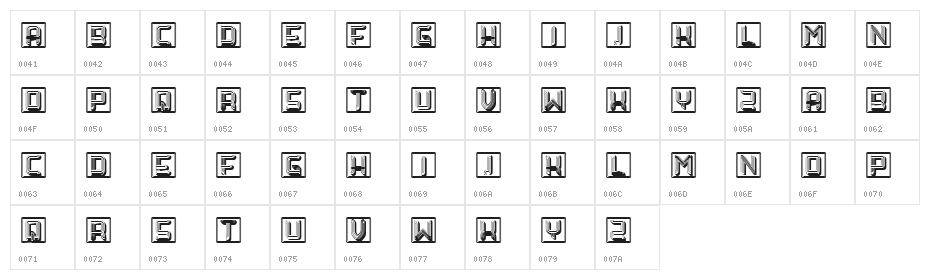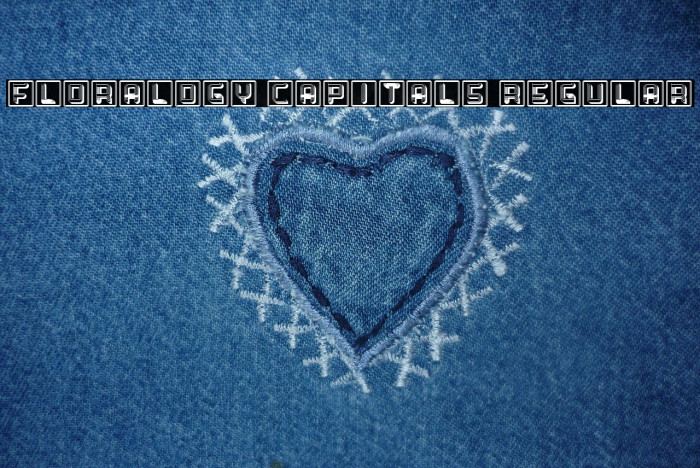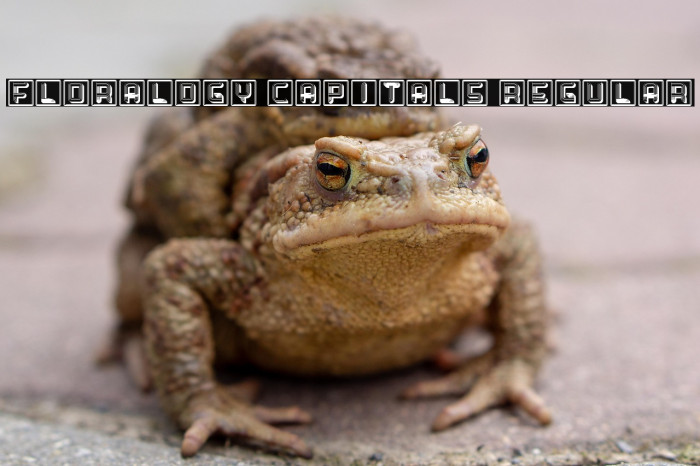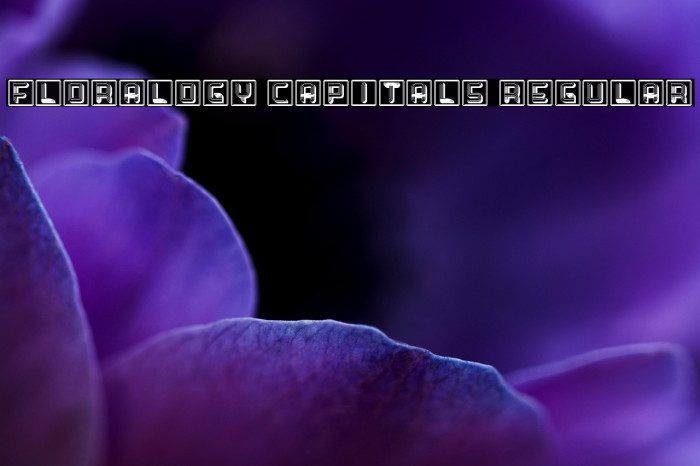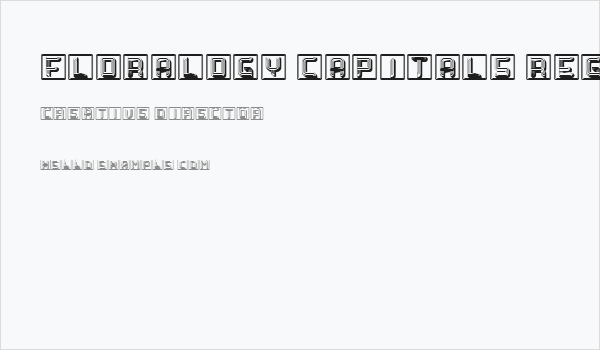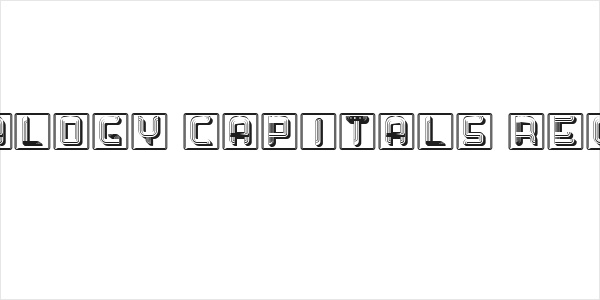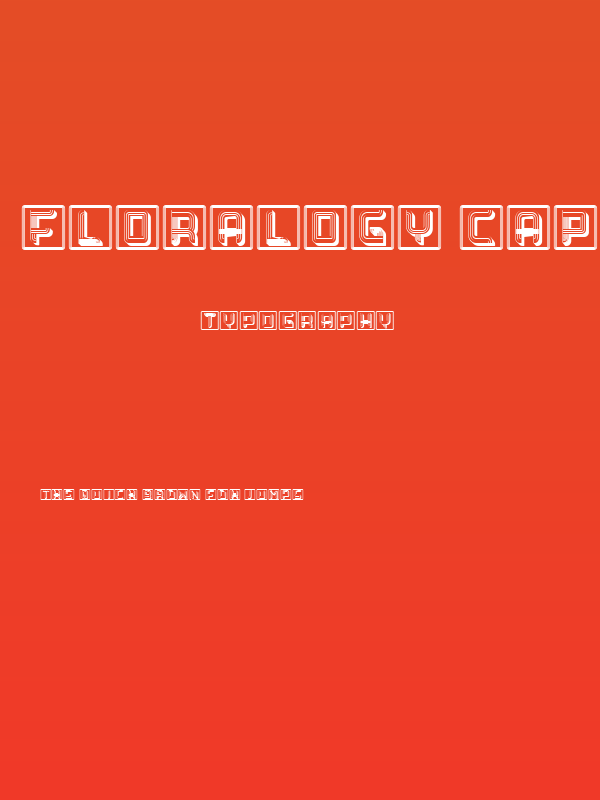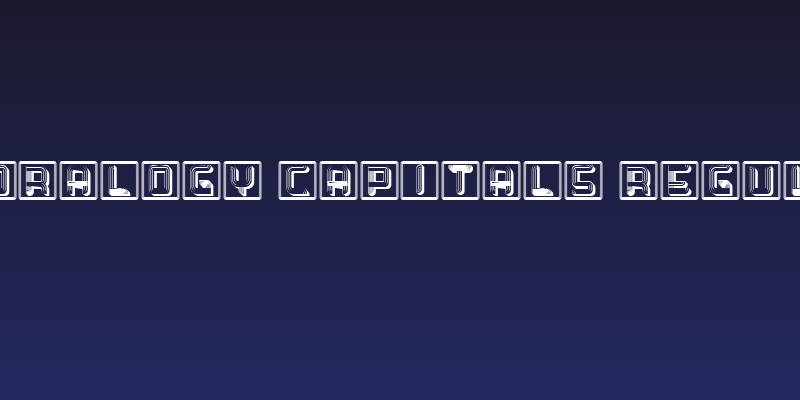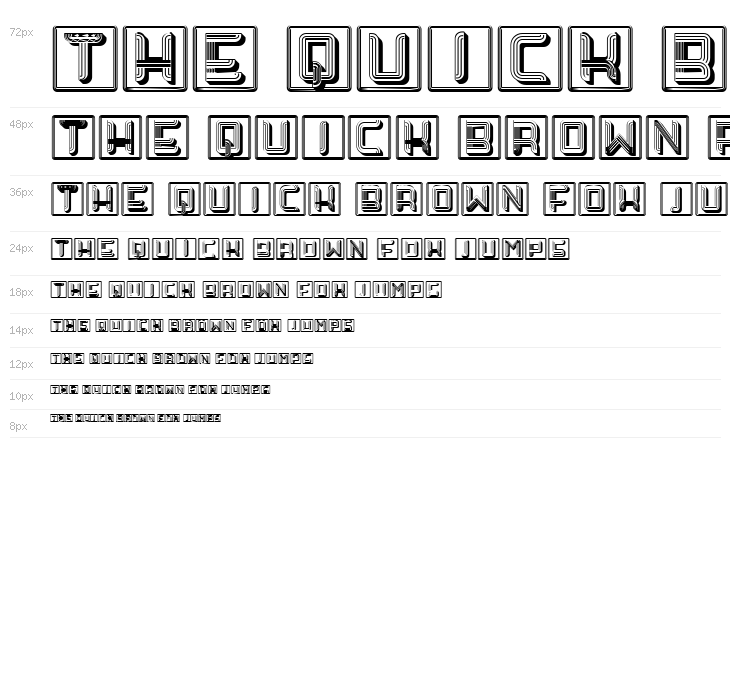
Floralogy Capitals Regular Font
Floralogy Capitals Regular Description
This font features a unique decorative style with each character enclosed in a square frame. The letters are bold and have intricate line patterns within them, creating a layered and dimensional effect. The design is highly stylized, making it stand out with its artistic flair. The uppercase letters are consistent in size and shape, providing a uniform appearance across the alphabet. The font's distinctiveness lies in its combination of geometric shapes and artistic line work, making it suitable for creative and eye-catching designs.
| Proposed Projects | Ideal for projects that require a bold and artistic touch, such as posters, album covers, and branding materials. |